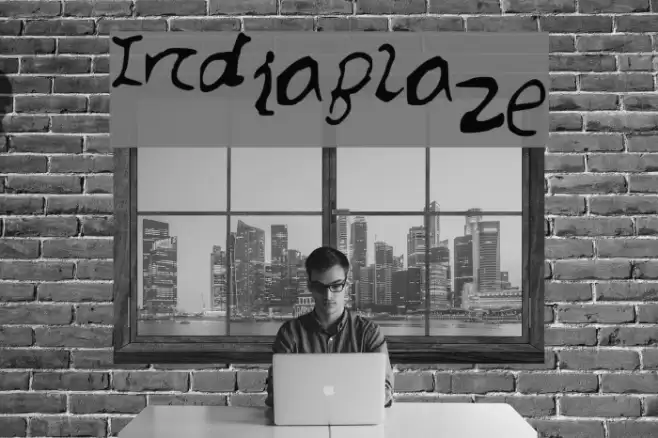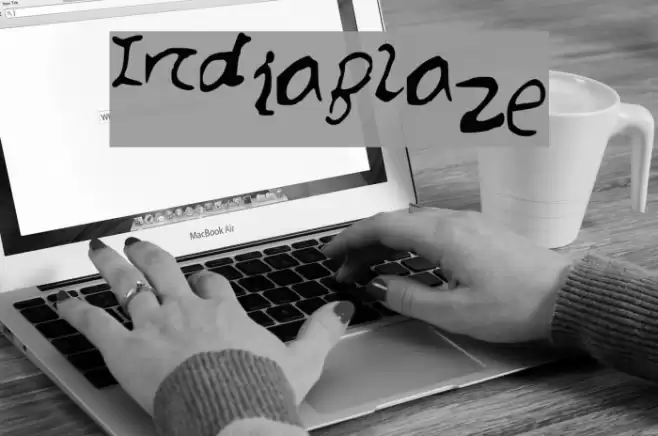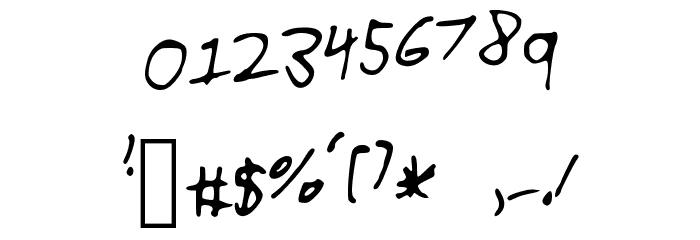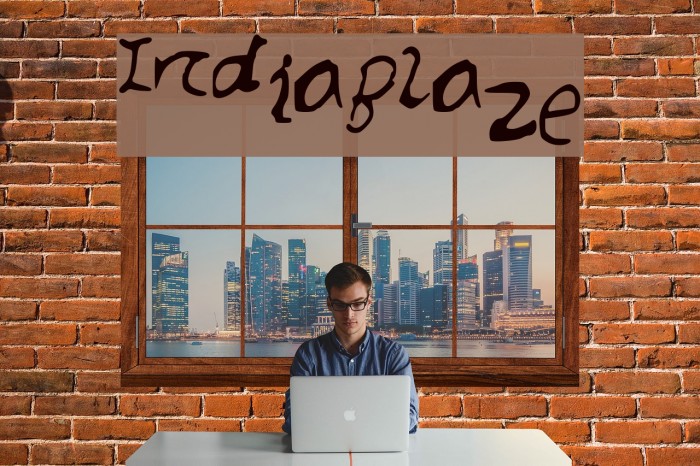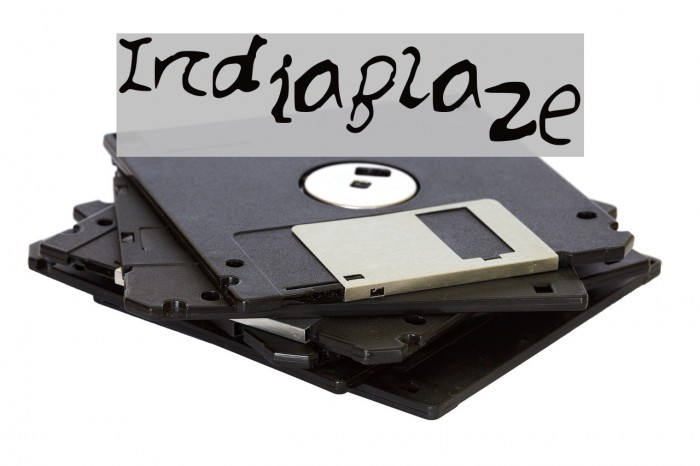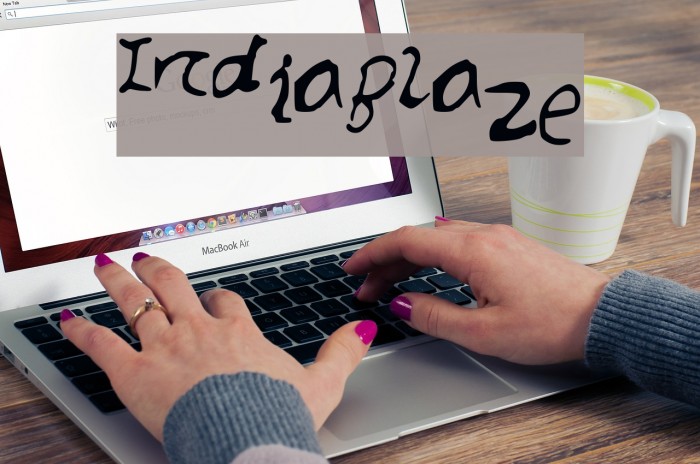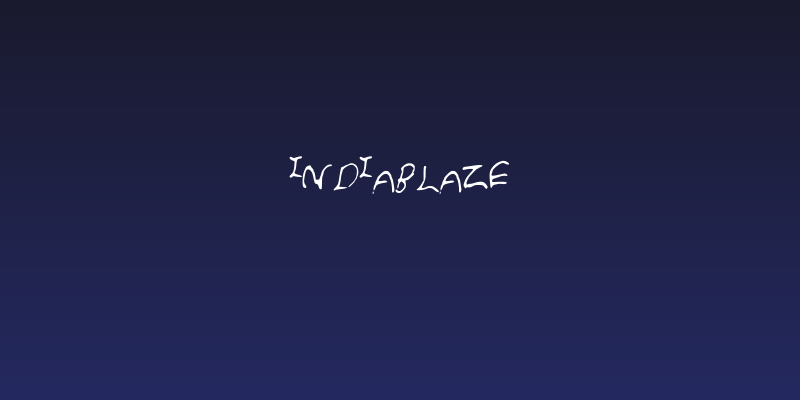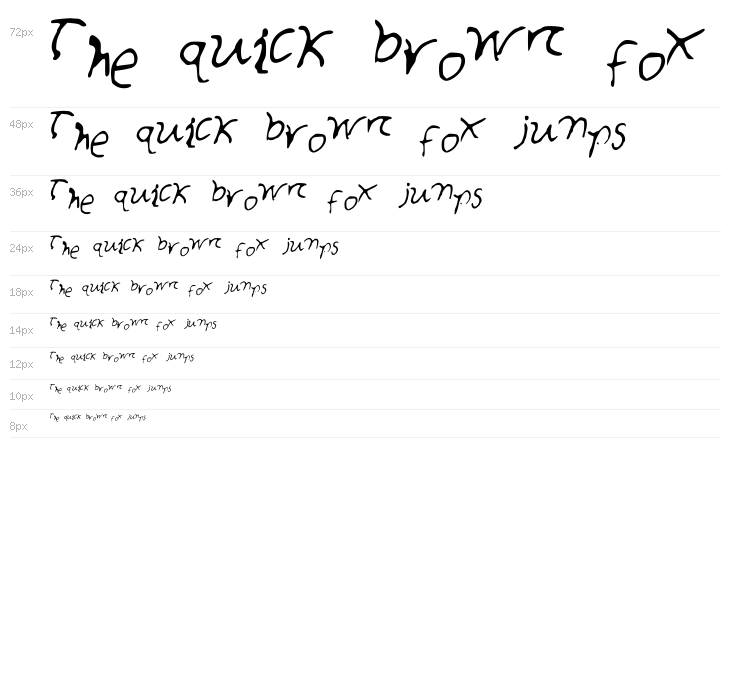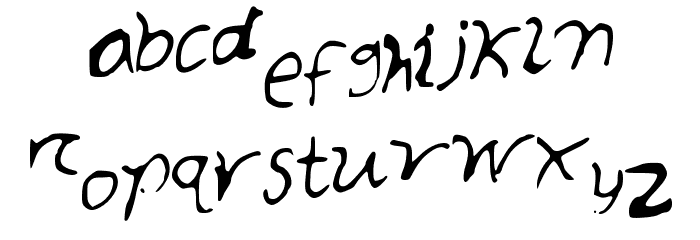
IndiaBlaze Font
IndiaBlaze Description
This font features a dynamic and expressive handwritten style, characterized by its fluid and irregular strokes. The uppercase letters exhibit a playful yet sophisticated flair, with varying heights and slants that add a sense of movement. The lowercase letters maintain a consistent flow, enhancing readability while retaining the font's unique character. Numbers and special characters are crafted with the same artistic touch, ensuring a cohesive look across all elements. The overall design conveys a sense of creativity and spontaneity, making it ideal for projects that require a personal and artistic touch.
A dynamic handwritten font with fluid and expressive strokes from Uncategorized fonts.
- Proposed Projects: Ideal for creative projects such as invitations, greeting cards, artistic branding, and personal blogs.
- Overall Style: Artistic
- Use Case: Logos, Invitations, Artistic Branding